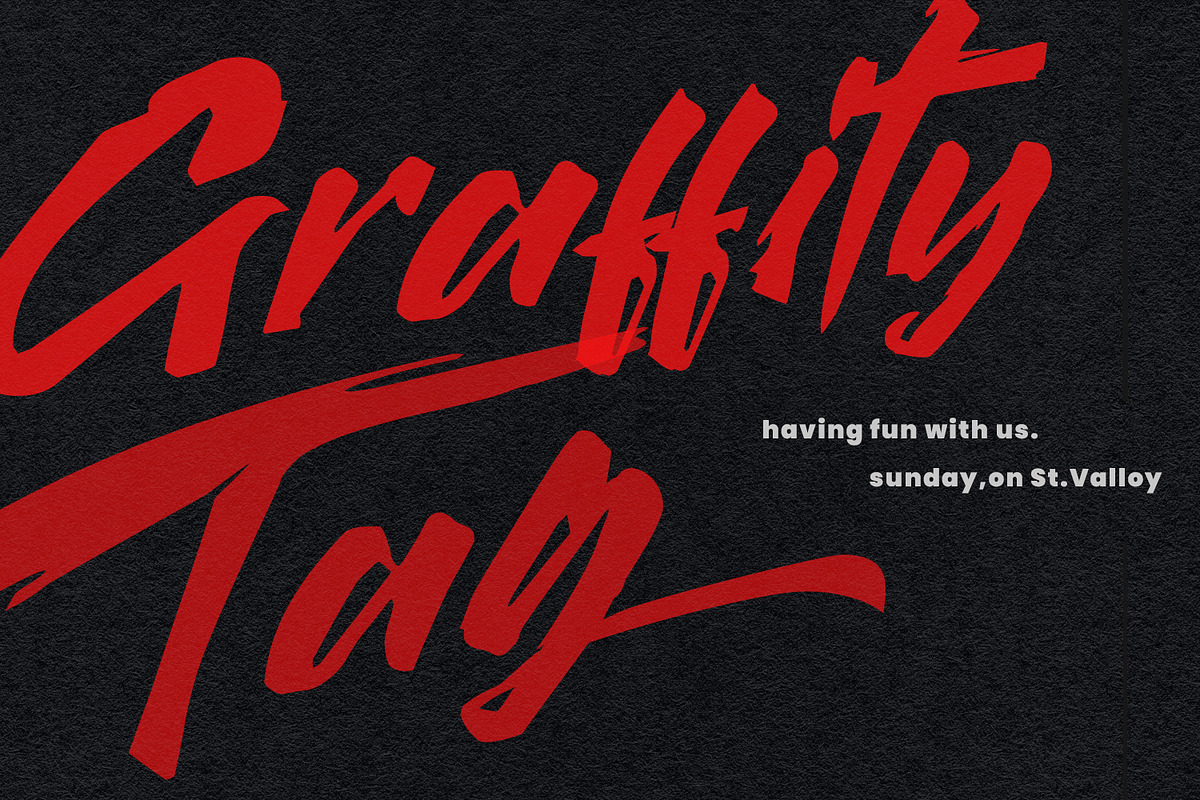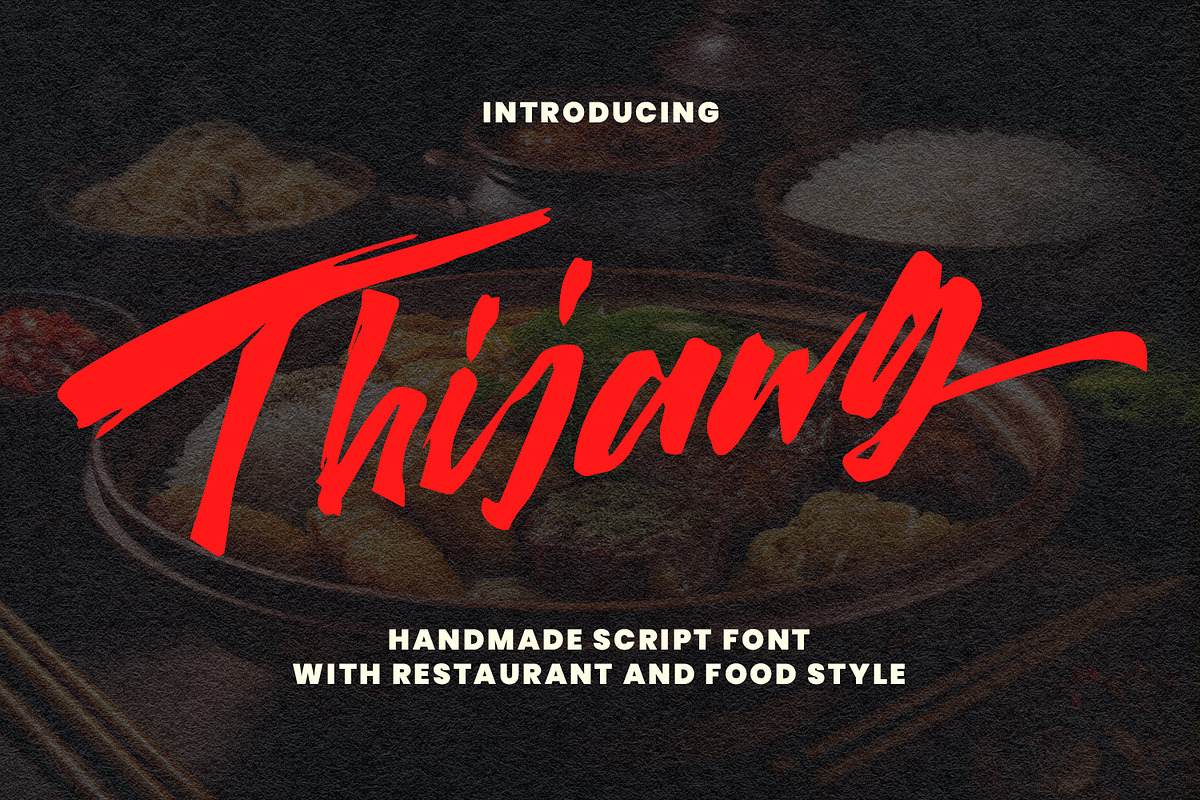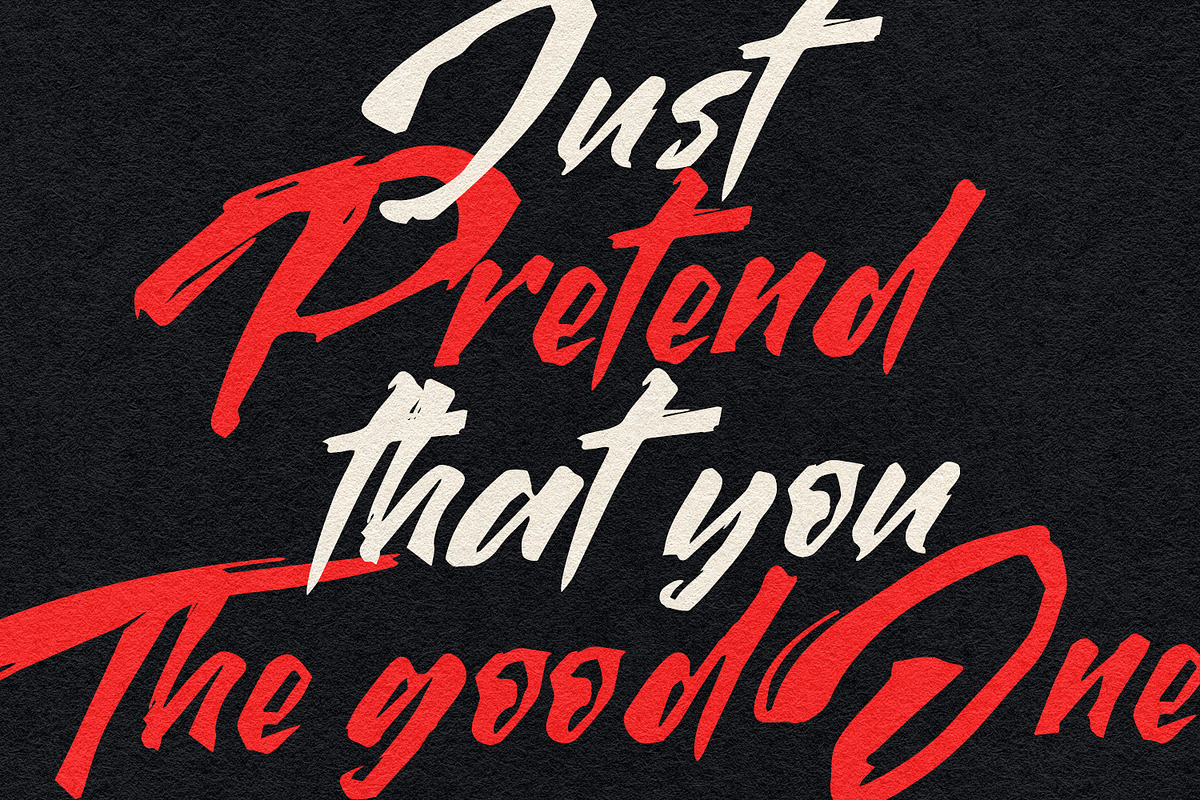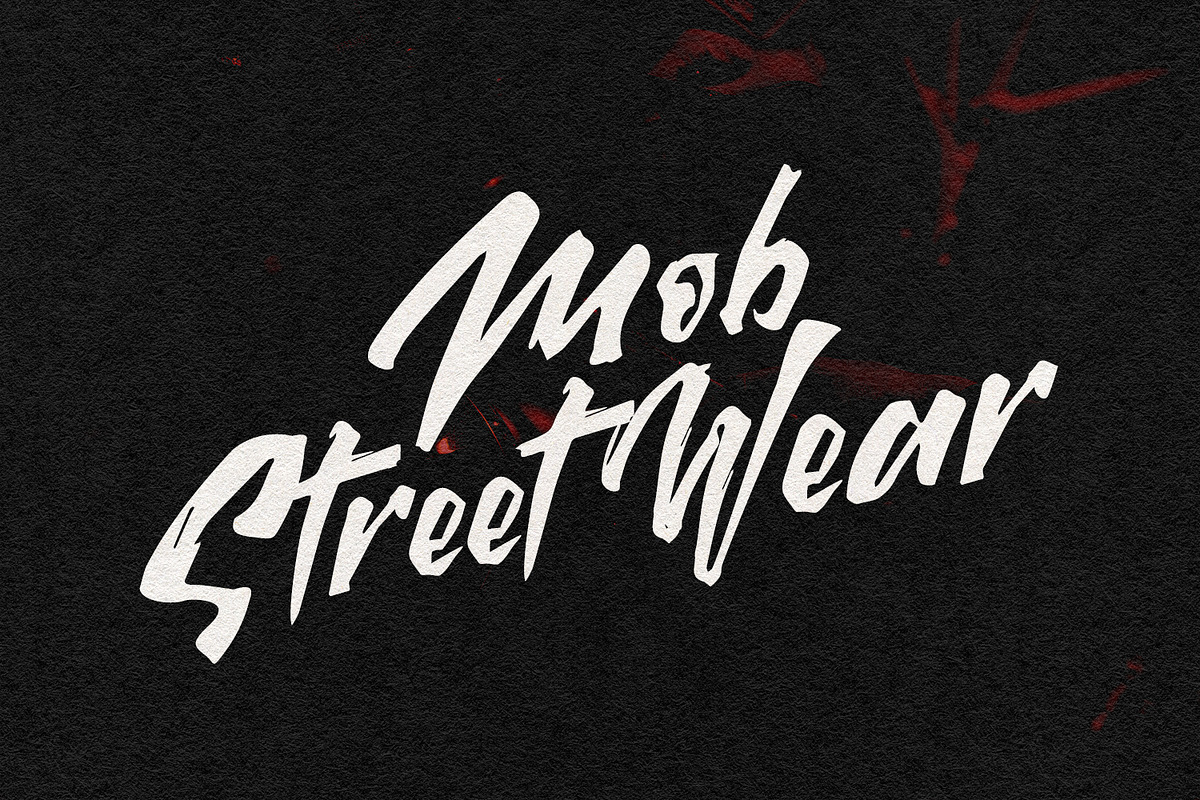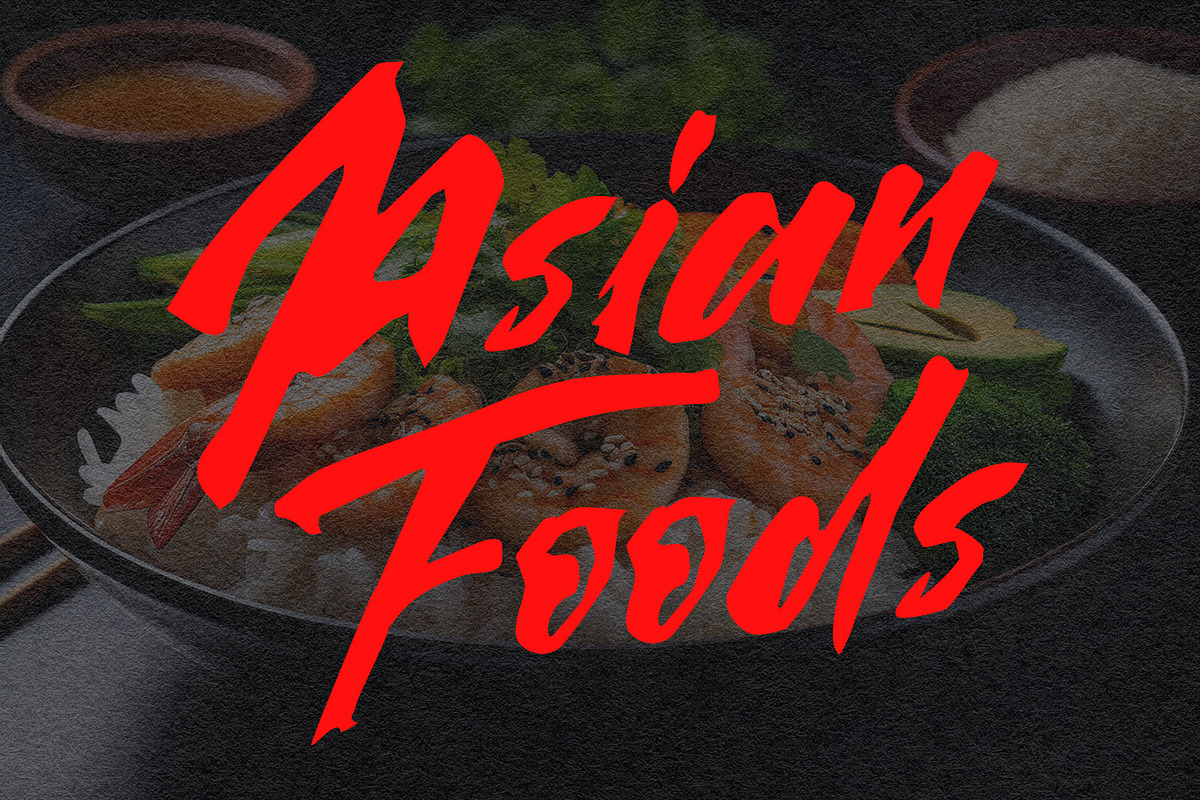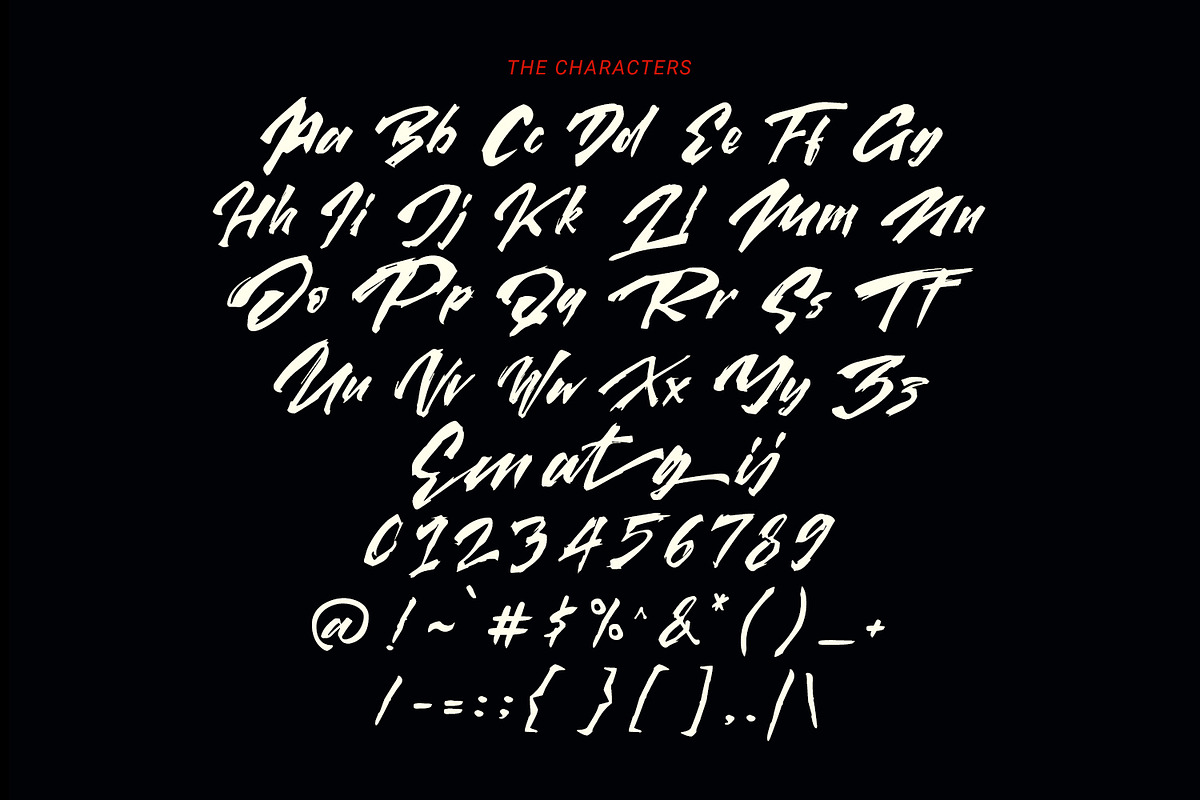
Thijawg Food Style Script Handmade
Give your designs an authentic handcrafted feel. "Thijawg Food Style Script Handmade Font" is perfectly suited to signature, stationery, logo, typography quotes, magazine or book cover, website header, flyer, clothing, branding, packaging design and more.